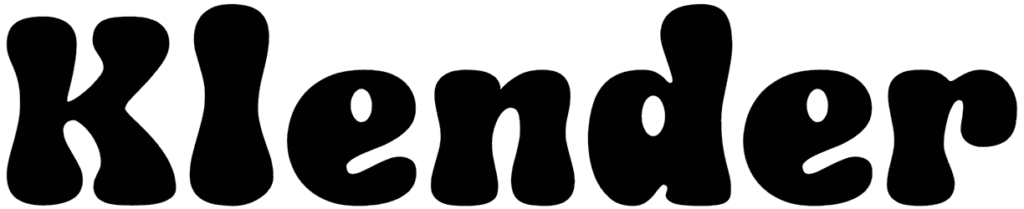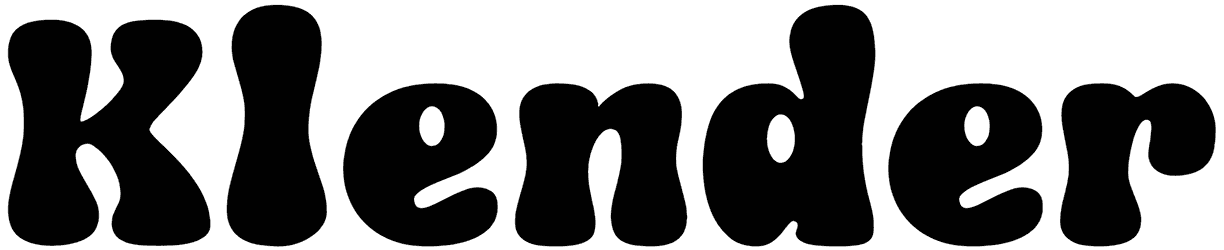
Klender Font
This groovy font is great for projects that need a laid-back vibe, such as books, crafts, billboards, apps, and headlines, because of its cartoonish letters and humorous form. This fancy font may be just what you need to add some flair to your graphics, despite the fact that it lacks numeric characters.